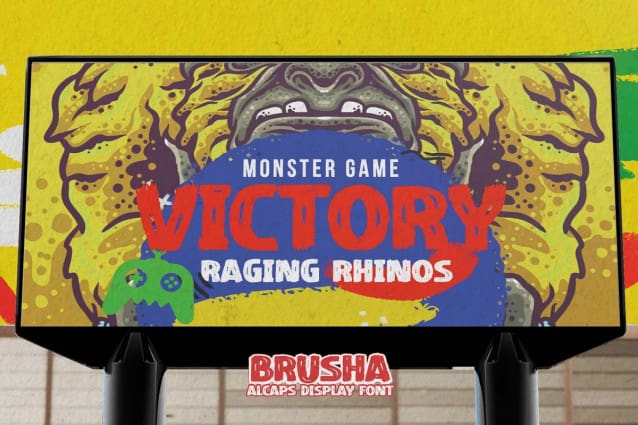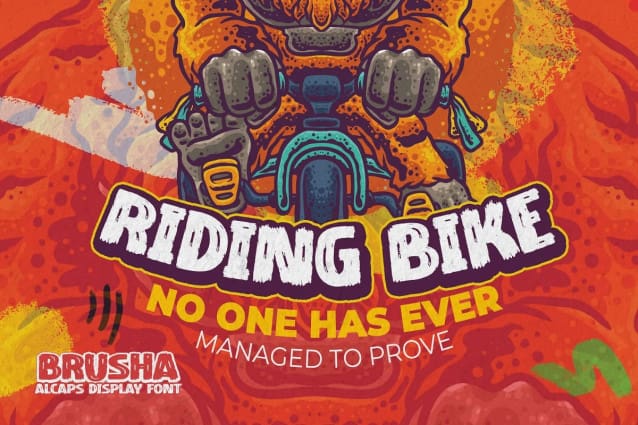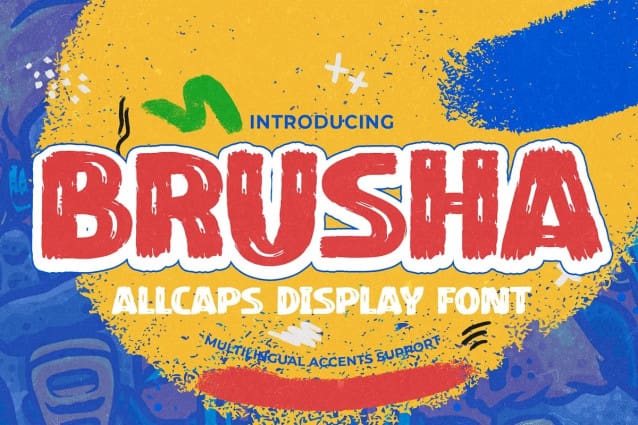
Brusha Brush Font
Brusha Brush Font It’s All Caps Display Font is a Textured Natural Style and classy style, this font is great for your creative projects such as watermark on photography, and perfect for logos & branding, invitation,advertisements,product designs, stationery, wedding designs,label ,product packaging, special events or anything that need handwritting taste.
BRUSHA is a natural Hand Drawn feel. This handmade font will make your design has a beautiful natural touch for each details. It is perfect for any design project as Invitation,logo, book cover, craft or any design purposes,photos, photography overlays, signs, window art, scrapbooking, tags and so much more! That is has charming, authentic and relaxed characteristic more natural look to your text.